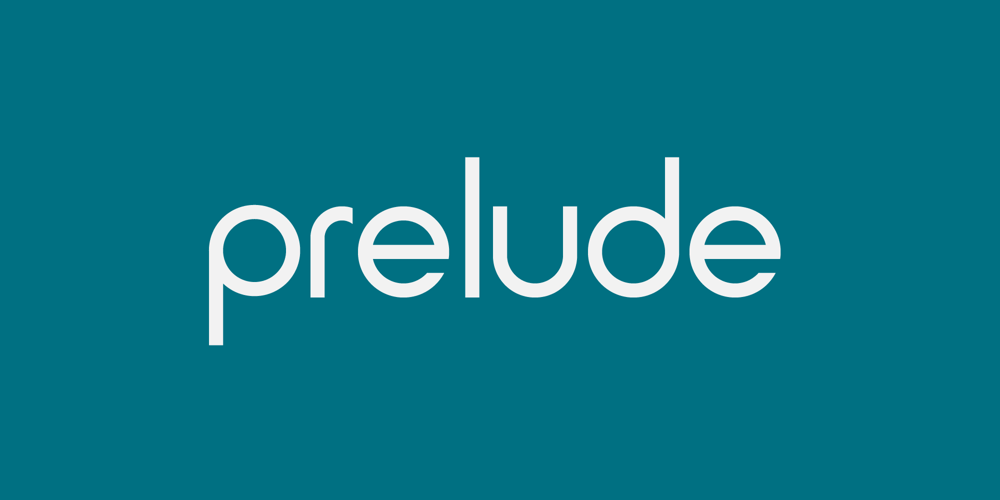
Prelude Font Family was designed by Iwan Alwan and published by Artiveko. Prelude contains 2 styles and family package options. Prelude is a sleek sans-serif font crafted by the talented designer, Iwan Alwan. With a minimalist concept at its core, Prelude exudes sophistication and modernity, making it a perfect choice for a variety of design projects. Its clean lines and balanced proportions lend a sense of elegance, whether it’s adorning business cards, billboards, magazines, or brochures.The versatility of Prelude allows it to seamlessly integrate into diverse design contexts, enhancing visual communication with its crisp and clear appearance. Designed with precision and attention to detail, this font effortlessly captures attention while maintaining readability, ensuring that your message is conveyed effectively across different mediums. With Prelude, elevate your design projects with a touch of contemporary refinement and style.